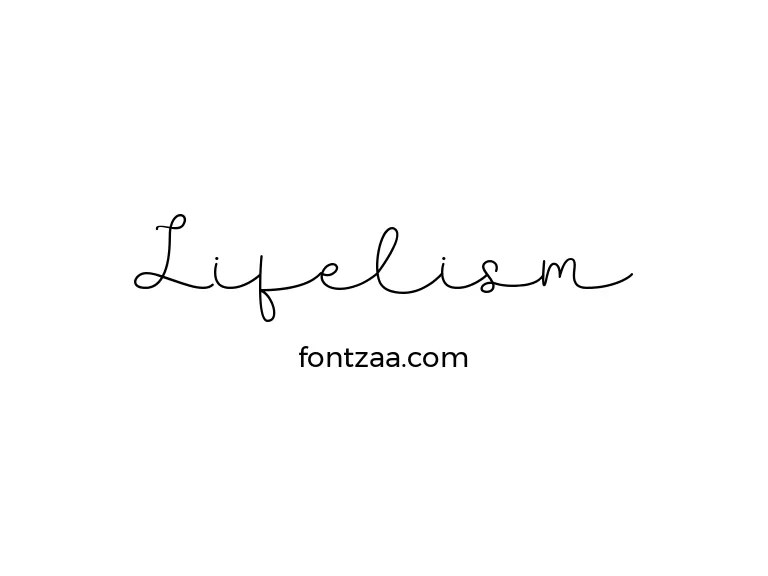
Lifelism Font introduces a elegant typographic style that can give creative projects a more individual appearance. With its distinctive letterforms, Lifelism Font can introduce a elegant character into creative display work. Its letter shapes become especially noticeable at larger sizes, where spacing and proportions can be explored more clearly. The font can work as the primary visual element in a minimal layout or as part of a more detailed composition. The typeface can change considerably depending on tracking, scale, alignment, background and surrounding imagery. Its display-focused appearance makes it worth testing in invitations, wedding stationery, signatures, quotes and elegant branding. Print and digital layouts may require different sizing and spacing, so testing the actual output dimensions is recommended. Designers should evaluate the typeface inside the real project because a standalone preview cannot show every possible visual combination. The available source information lists JunCreative (Muhamad Junaid) @mjart96 as the designer or publisher. The available licensing label is Free for personal use, but redistribution and commercial permissions should always be confirmed from the original source. A few quick layout variations can help determine where the font creates the strongest visual result.
Designers exploring a elegant typeface can use Lifelism Font to add a more recognizable visual voice to headlines, branding and promotional layouts. Its letter shapes become especially noticeable at larger sizes, where spacing and proportions can be explored more clearly. The font can work as the primary visual element in a minimal layout or as part of a more detailed composition. Different color combinations can make the same font feel subtle, energetic, premium or highly decorative. Creative uses may range from invitations, wedding stationery, signatures, quotes and elegant branding, with different results depending on scale and layout. For layouts containing longer information, pairing it with a simpler supporting typeface can improve readability and hierarchy. A clean serif or sans serif companion can handle smaller text while this font remains focused on headlines and key messages. The available source information lists JunCreative (Muhamad Junaid) @mjart96 as the designer or publisher. License details are currently listed as Free for personal use. Users should verify the supplied documentation before using the font in products or paid projects. Its final appearance will depend heavily on the surrounding colors, imagery, spacing and supporting typography.
Designers exploring a elegant typeface can use Lifelism Font to add a more recognizable visual voice to digital and print projects. The font can work as the primary visual element in a minimal layout or as part of a more detailed composition. Its letter shapes become especially noticeable at larger sizes, where spacing and proportions can be explored more clearly. Using generous space around the lettering can help the details of the typeface remain visible instead of competing with other elements. Possible applications include invitations, wedding stationery, signatures, quotes and elegant branding. A clean serif or sans serif companion can handle smaller text while this font remains focused on headlines and key messages. For layouts containing longer information, pairing it with a simpler supporting typeface can improve readability and hierarchy. The available source information lists JunCreative (Muhamad Junaid) @mjart96 as the designer or publisher. License details are currently listed as Free for personal use. Users should verify the supplied documentation before using the font in products or paid projects. A few quick layout variations can help determine where the font creates the strongest visual result.
Lifelism Font Family
The Lifelism Font Family gives designers a flexible display option that can be adapted through changes in size, spacing, alignment and color. With its distinctive letterforms, Lifelism Font can introduce a elegant character into font-family exploration. Different color combinations can make the same font feel subtle, energetic, premium or highly decorative. Its letter shapes become especially noticeable at larger sizes, where spacing and proportions can be explored more clearly. Using generous space around the lettering can help the details of the typeface remain visible instead of competing with other elements. Its display-focused appearance makes it worth testing in invitations, wedding stationery, signatures, quotes and elegant branding. Print and digital layouts may require different sizing and spacing, so testing the actual output dimensions is recommended. Designers should evaluate the typeface inside the real project because a standalone preview cannot show every possible visual combination. The available source information lists JunCreative (Muhamad Junaid) @mjart96 as the designer or publisher. The listed license is Free for personal use, although users should still review the original font package before commercial use. Its final appearance will depend heavily on the surrounding colors, imagery, spacing and supporting typography.
Design Ideas for Lifelism Font
With its distinctive letterforms, Lifelism Font can introduce a elegant character into different creative applications for the font. Its letter shapes become especially noticeable at larger sizes, where spacing and proportions can be explored more clearly. Different color combinations can make the same font feel subtle, energetic, premium or highly decorative. The typeface can change considerably depending on tracking, scale, alignment, background and surrounding imagery. Designers may explore it across invitations, wedding stationery, signatures, quotes and elegant branding, depending on the tone and requirements of the project. A clean serif or sans serif companion can handle smaller text while this font remains focused on headlines and key messages. Keeping secondary typography simple often allows the distinctive qualities of the main font to remain more visible. The available source information lists JunCreative (Muhamad Junaid) @mjart96 as the designer or publisher. License details are currently listed as Free for personal use. Users should verify the supplied documentation before using the font in products or paid projects. A few quick layout variations can help determine where the font creates the strongest visual result.
What Makes Lifelism Font Stand Out
With its distinctive letterforms, Lifelism Font can introduce a elegant character into the visual characteristics and design personality of the typeface. The font can work as the primary visual element in a minimal layout or as part of a more detailed composition. Its letter shapes become especially noticeable at larger sizes, where spacing and proportions can be explored more clearly. The typeface can change considerably depending on tracking, scale, alignment, background and surrounding imagery. Designers may explore it across invitations, wedding stationery, signatures, quotes and elegant branding, depending on the tone and requirements of the project. For layouts containing longer information, pairing it with a simpler supporting typeface can improve readability and hierarchy. Print and digital layouts may require different sizing and spacing, so testing the actual output dimensions is recommended. According to the available font information, the typeface is associated with JunCreative (Muhamad Junaid) @mjart96. The available licensing label is Free for personal use, but redistribution and commercial permissions should always be confirmed from the original source. Testing the font with the actual project text can provide a much better impression than viewing isolated sample characters.
Using Lifelism Font in Logos
Lifelism Font brings a elegant personality to typography and gives designers a flexible starting point for logos, wordmarks and visual identity systems. Using generous space around the lettering can help the details of the typeface remain visible instead of competing with other elements. The font can work as the primary visual element in a minimal layout or as part of a more detailed composition. The typeface can change considerably depending on tracking, scale, alignment, background and surrounding imagery. Designers may explore it across invitations, wedding stationery, signatures, quotes and elegant branding, depending on the tone and requirements of the project. Keeping secondary typography simple often allows the distinctive qualities of the main font to remain more visible. Designers should evaluate the typeface inside the real project because a standalone preview cannot show every possible visual combination. The available source information lists JunCreative (Muhamad Junaid) @mjart96 as the designer or publisher. Current license information is shown as Free for personal use; checking the original documentation is recommended before client or commercial work. Experimenting directly in the intended design is usually the best way to judge whether the typeface suits the project.
Using Lifelism Font for Posters and Social Media
Designers exploring a elegant typeface can use Lifelism Font to add a more recognizable visual voice to posters, campaigns, thumbnails and promotional content. The font can work as the primary visual element in a minimal layout or as part of a more detailed composition. Its letter shapes become especially noticeable at larger sizes, where spacing and proportions can be explored more clearly. Testing several arrangements before choosing the final version can reveal which characteristics of the typeface work best. Its display-focused appearance makes it worth testing in invitations, wedding stationery, signatures, quotes and elegant branding. For layouts containing longer information, pairing it with a simpler supporting typeface can improve readability and hierarchy. A clean serif or sans serif companion can handle smaller text while this font remains focused on headlines and key messages. The designer or publisher information available for this typeface is JunCreative (Muhamad Junaid) @mjart96. The listed license is Free for personal use, although users should still review the original font package before commercial use. The most effective treatment will vary by project, so designers should compare several versions before finalizing the artwork.
How to Pair Lifelism Font With Other Fonts
With its distinctive letterforms, Lifelism Font can introduce a elegant character into combining the display font with supporting typefaces. The font can work as the primary visual element in a minimal layout or as part of a more detailed composition. Using generous space around the lettering can help the details of the typeface remain visible instead of competing with other elements. Its letter shapes become especially noticeable at larger sizes, where spacing and proportions can be explored more clearly. Possible applications include invitations, wedding stationery, signatures, quotes and elegant branding. Print and digital layouts may require different sizing and spacing, so testing the actual output dimensions is recommended. A clean serif or sans serif companion can handle smaller text while this font remains focused on headlines and key messages. The designer or publisher information available for this typeface is JunCreative (Muhamad Junaid) @mjart96. The available licensing label is Free for personal use, but redistribution and commercial permissions should always be confirmed from the original source. Testing the font with the actual project text can provide a much better impression than viewing isolated sample characters.
Find More Fonts Like Lifelism Font
For projects that need typography with a stronger identity, Lifelism Font offers a elegant direction suited to discovering alternatives and related typography. Testing several arrangements before choosing the final version can reveal which characteristics of the typeface work best. The typeface can change considerably depending on tracking, scale, alignment, background and surrounding imagery. Its letter shapes become especially noticeable at larger sizes, where spacing and proportions can be explored more clearly. Its display-focused appearance makes it worth testing in invitations, wedding stationery, signatures, quotes and elegant branding. A clean serif or sans serif companion can handle smaller text while this font remains focused on headlines and key messages. For layouts containing longer information, pairing it with a simpler supporting typeface can improve readability and hierarchy. The available source information lists JunCreative (Muhamad Junaid) @mjart96 as the designer or publisher. The listed license is Free for personal use, although users should still review the original font package before commercial use. Its final appearance will depend heavily on the surrounding colors, imagery, spacing and supporting typography. Explore more typography on Fontzaa or browse the 100% Free Fonts collection.